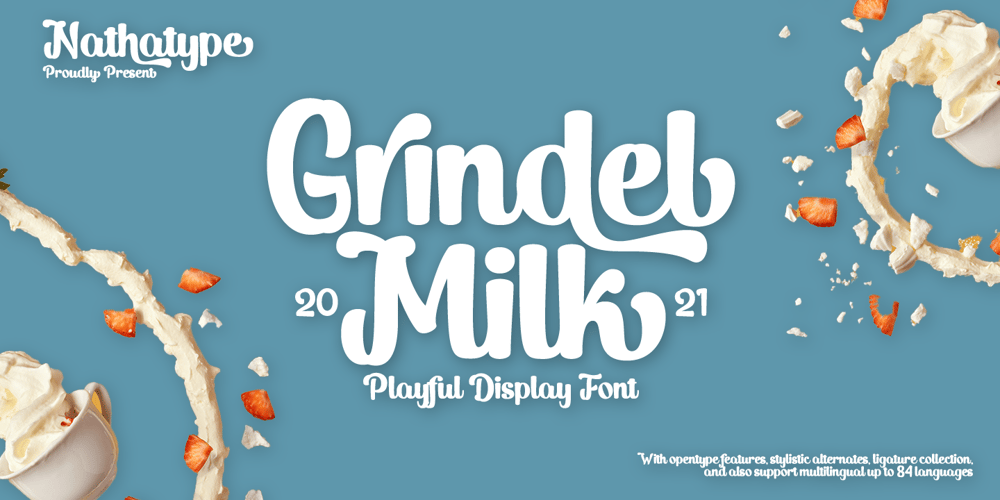
Grindel Milk Font Family was designed by Donis Miftahudin and published by Nathatype. Grindel Milk contains 1 styles and family package options. Looking for a font that’ll make your branding radiate playfulness? Something that’s versatile, stylish, and eternal? If you need to create a big, bold logo for your business, work on a poster for an event, or whatever your project may be. You only need to change one element to engage and convert your clients. Then this is the perfect font for you. Grindel Milk-A Display FontGrindel Milk is a display font designed to bring your branding to life and add a touch of elegance, cheerful, and style. We are hoping that through this playful font, you can maximize your designs! In turn, you’ll communicate the perfect idea to your audiences or clients. The best choice for branding projects, book/magazine cover, fashion designs, quotes, packaging, or even as a stylish text overlay to any background image. Our font always includes Multilingual Support to make your branding reach a global audience. Features: Ligatures Stylistic Sets Swashes PUA Encoded Numerals and Punctuation Thank you for downloading premium fonts from Nathatype